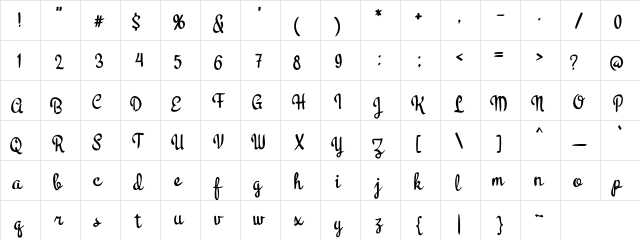
Koala Script Regular
| Foundry | ijem_pirate_ferdiansyah |
| Designer | ijem_pirate_ferdiansyah |
Design Context for Koala Script Typeface
Koala Script brings a calligraphic fluidity to the page — its connecting strokes and expressive curves give it an unmistakably human quality.
Font Pairing: Combine Koala Script with a simple geometric sans for maximum contrast — the tension between flowing curves and clean structure is a classic typographic pairing.
Pro Tip: Pair Koala Script with a clean sans-serif for supporting text. The contrast between fluid script and geometric structure creates an elegant typographic hierarchy.